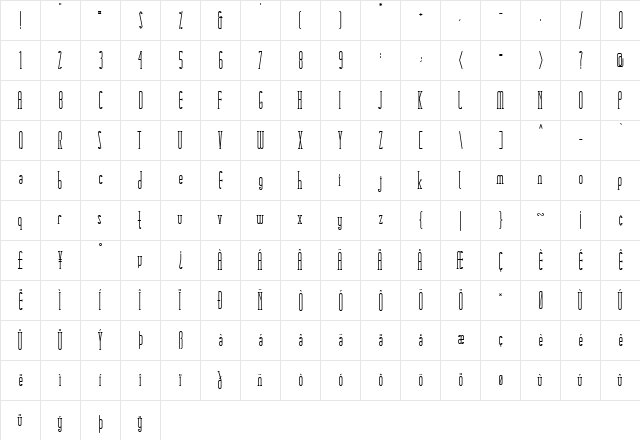
Matchbook Serif Matchbook Serif
| Foundry | One by Four |
| Designer | Brian Haines |
Design Context for Matchbook Serif Typeface
Matchbook Serif brings classic typographic sensibility to the table — its serifs and measured letterforms reflect centuries of print heritage.
Pro Tip: Use Matchbook Serif for editorial body copy and considered headline work. Pair with a neutral sans for UI elements or captions to create a classic hierarchy.